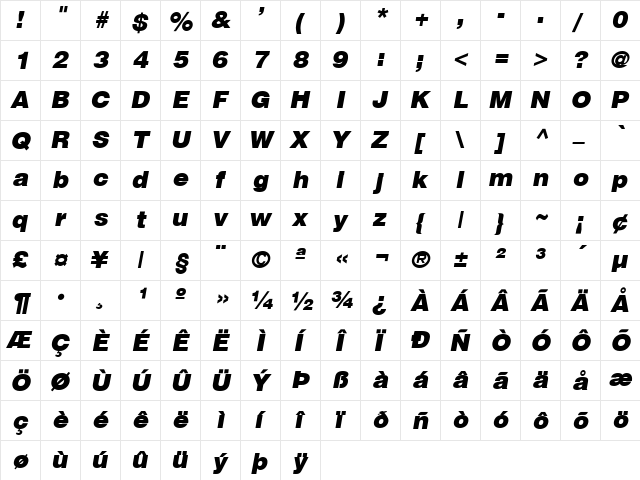
SwitzerlandBlack Italic
Design Context for SwitzerlandBlack Typeface
SwitzerlandBlack offers clean, dependable letterforms without strong stylistic allegiance, making it a practical choice for designers who need flexibility. The slanted form adds forward momentum and visual energy.